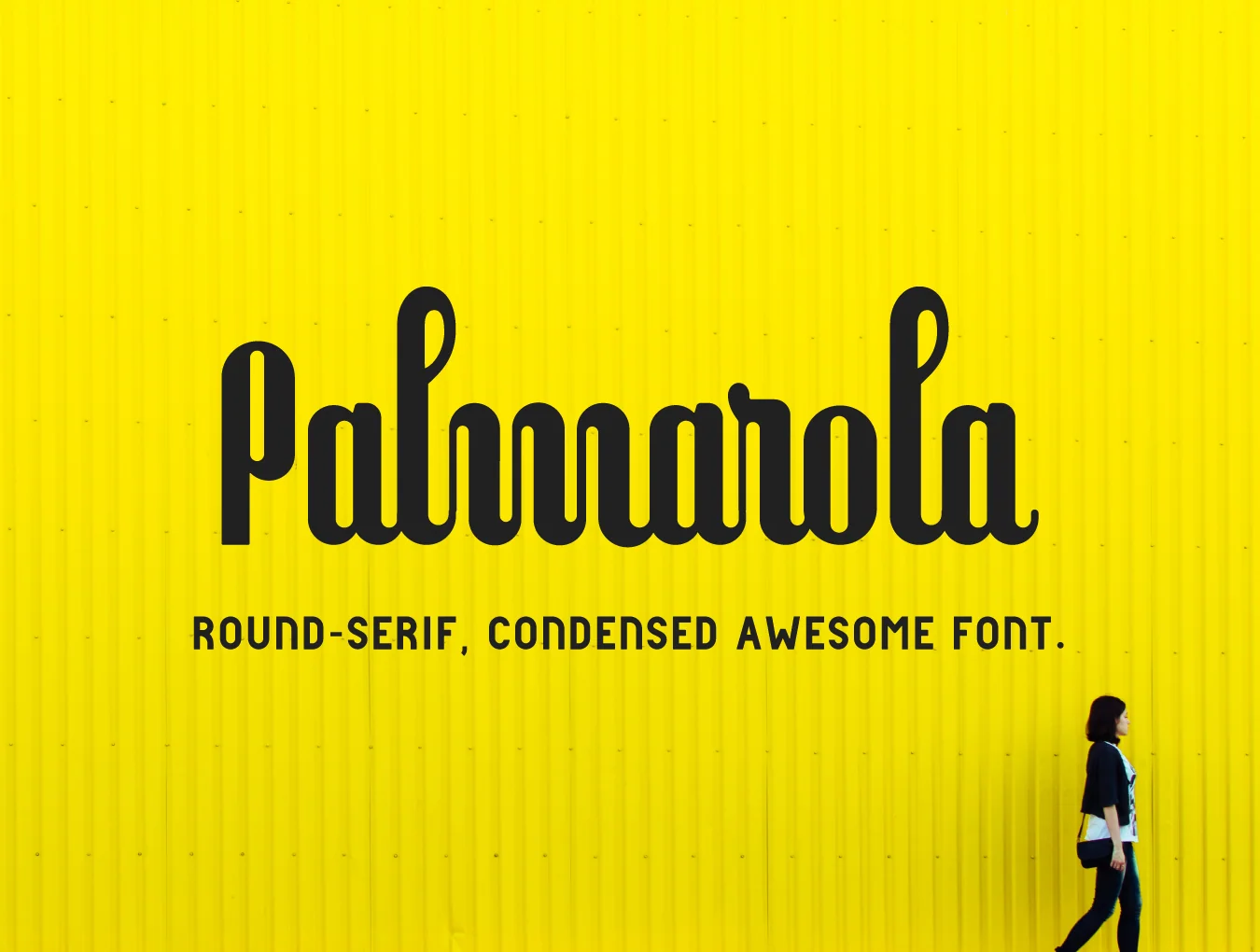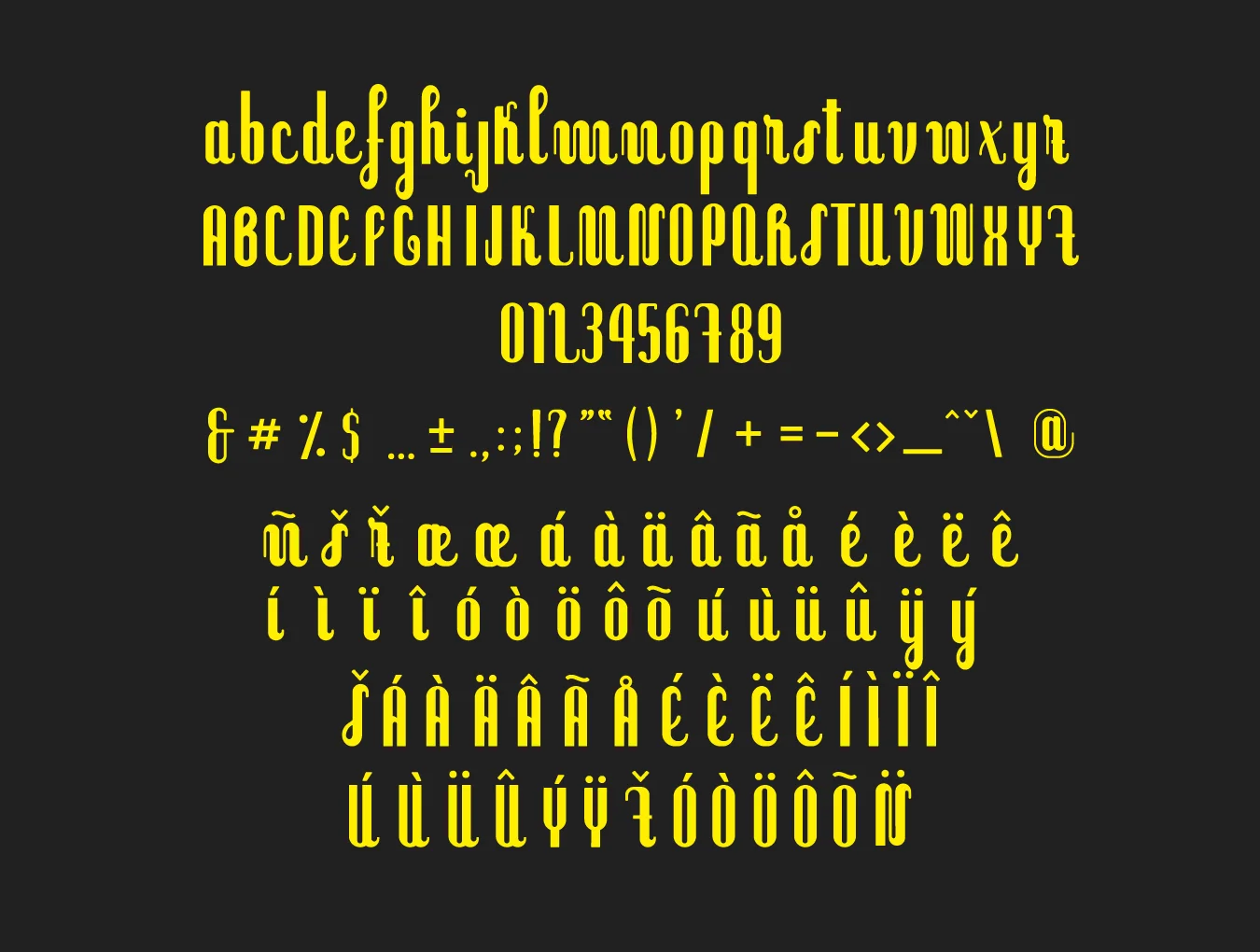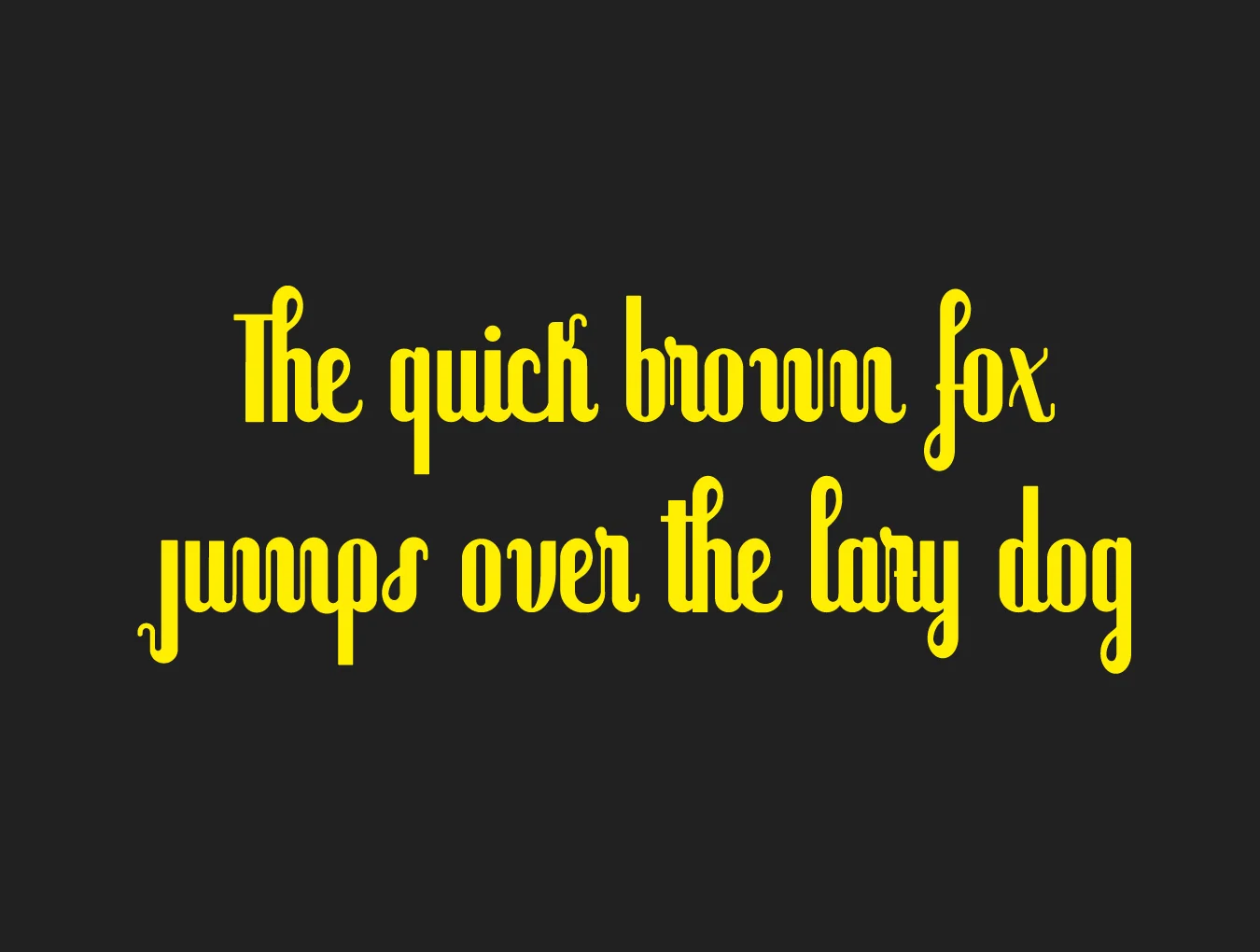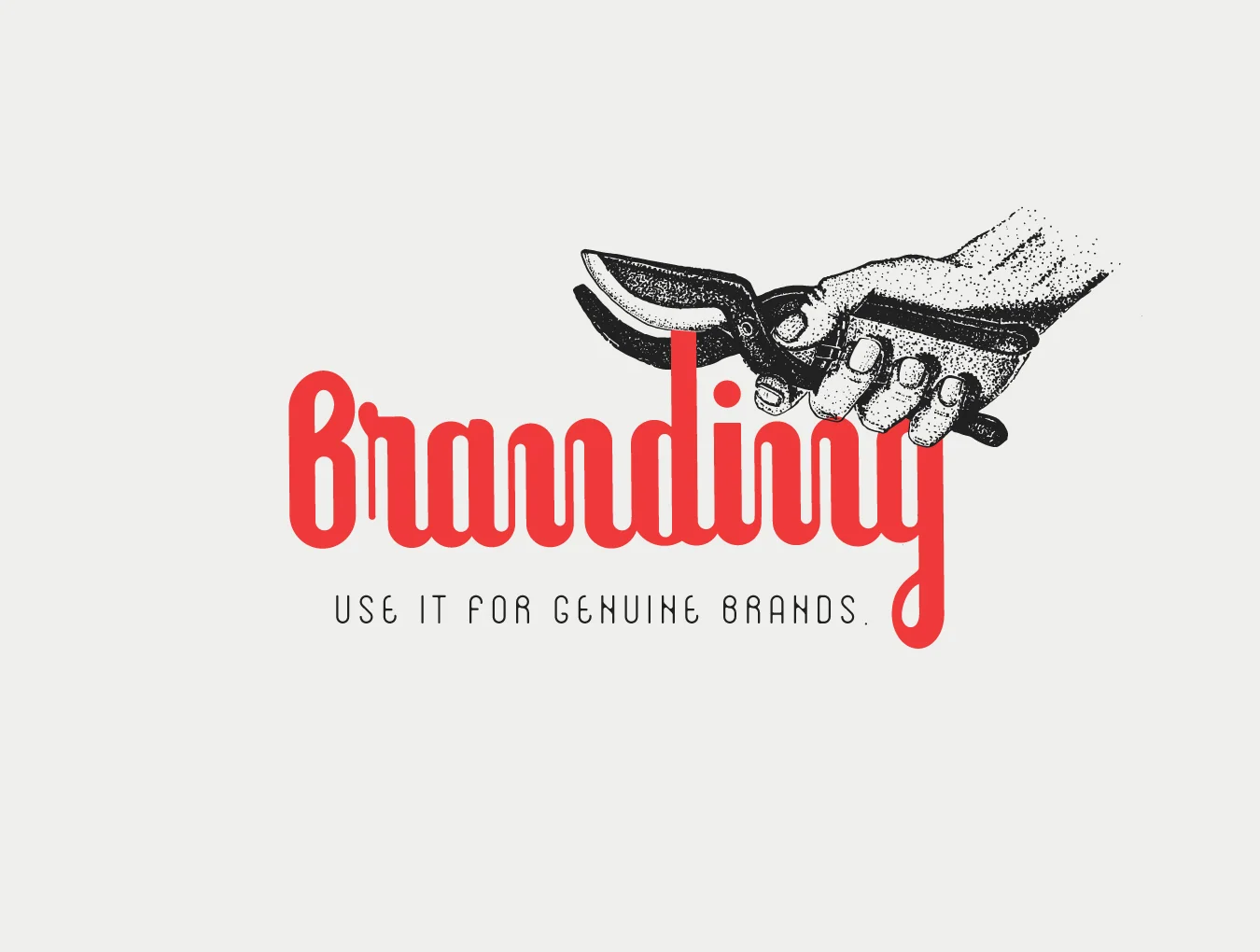
Palmarola Font
Palmarola Serif Typeface
Serif typeface style
176 included glyphs
Multilingual language support
Palmarola is a fresh rounded serif typeface influenced by classic Italian lettering. It suits authentic branding and bold, attention-grabbing headlines. Refined kerning and automatic ligatures help deliver polished, professional text composition for your next brand project.